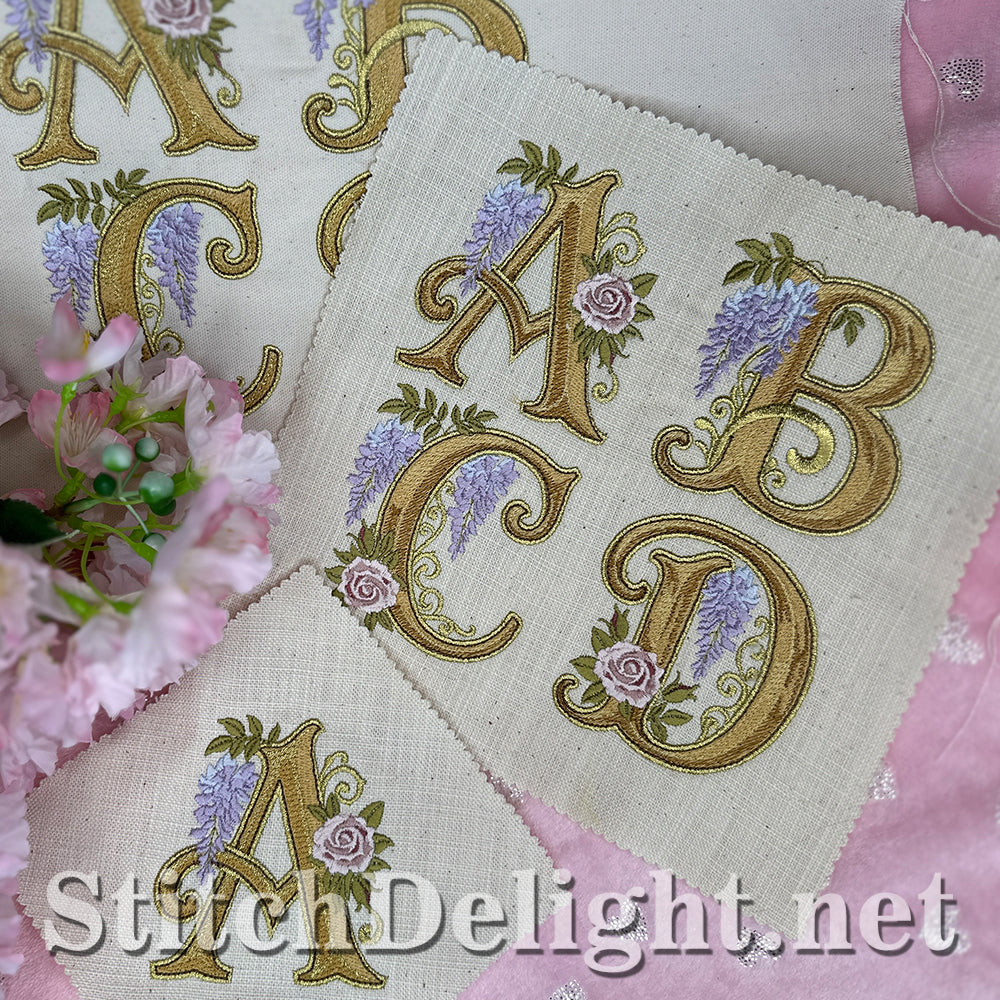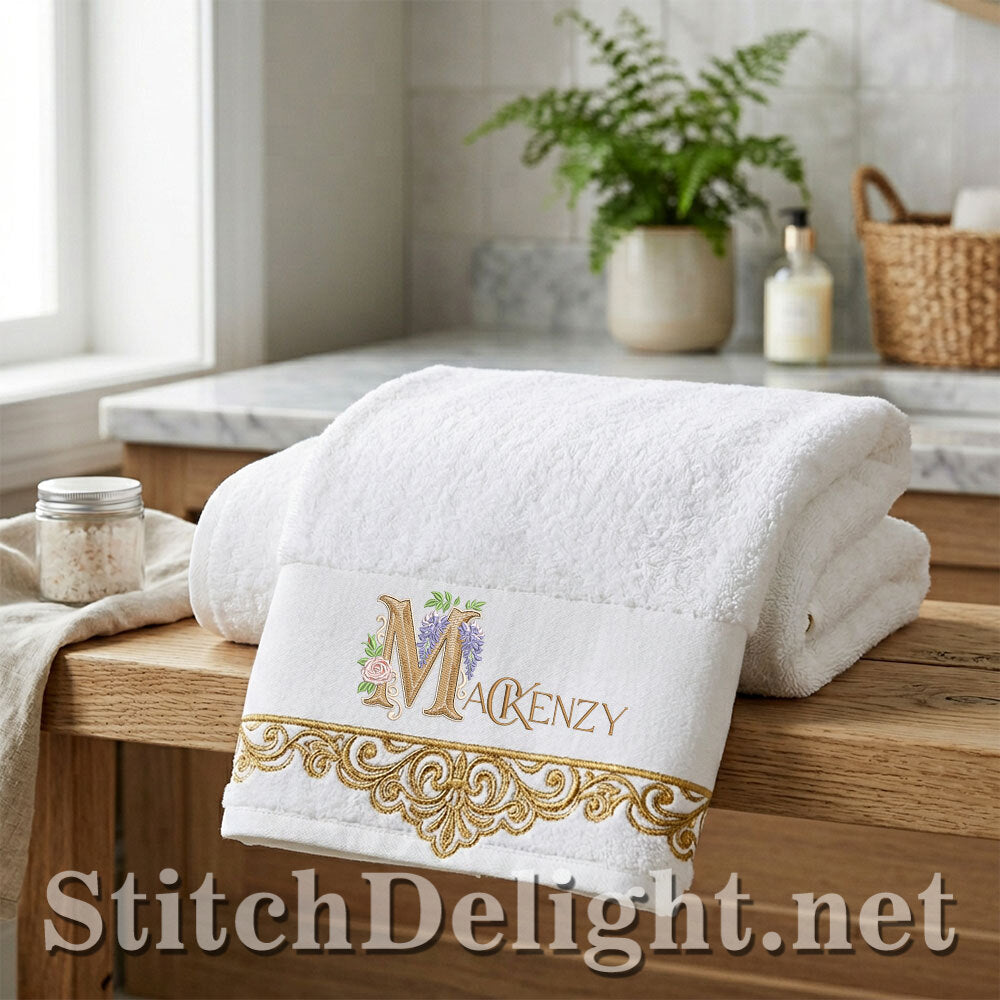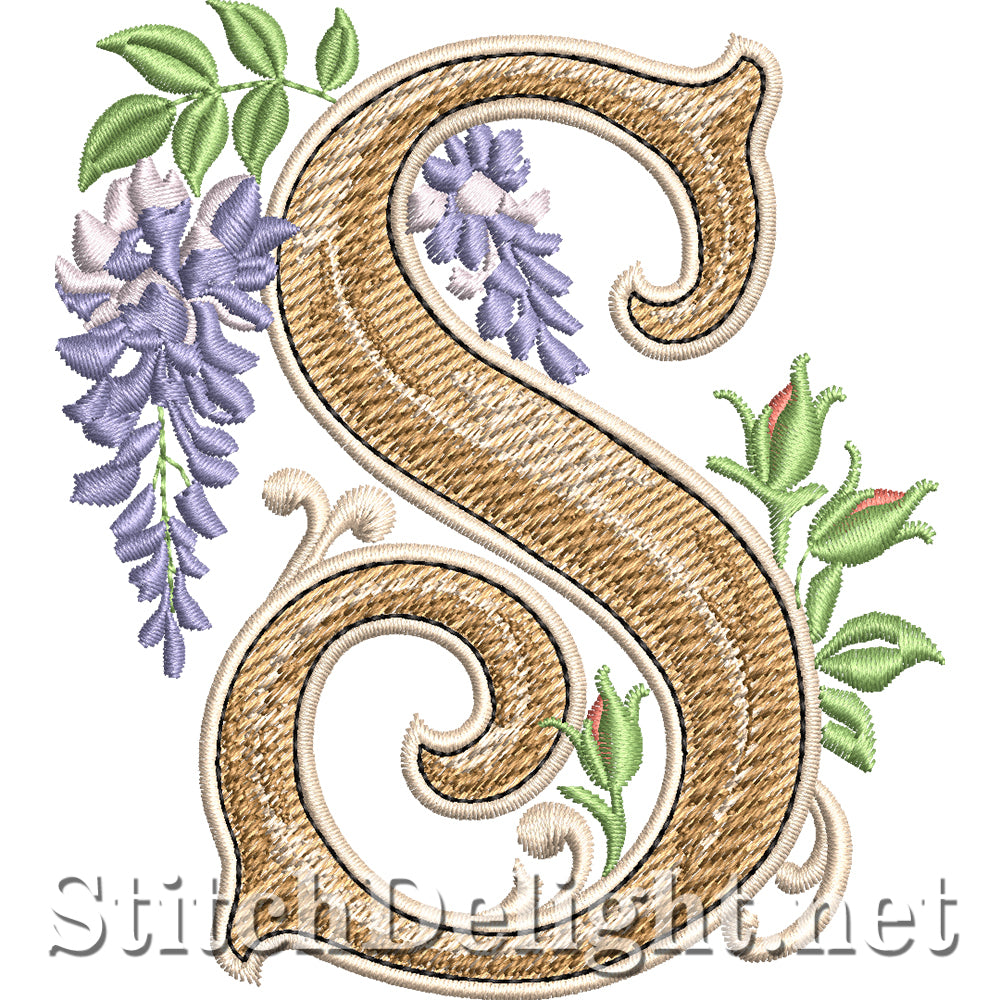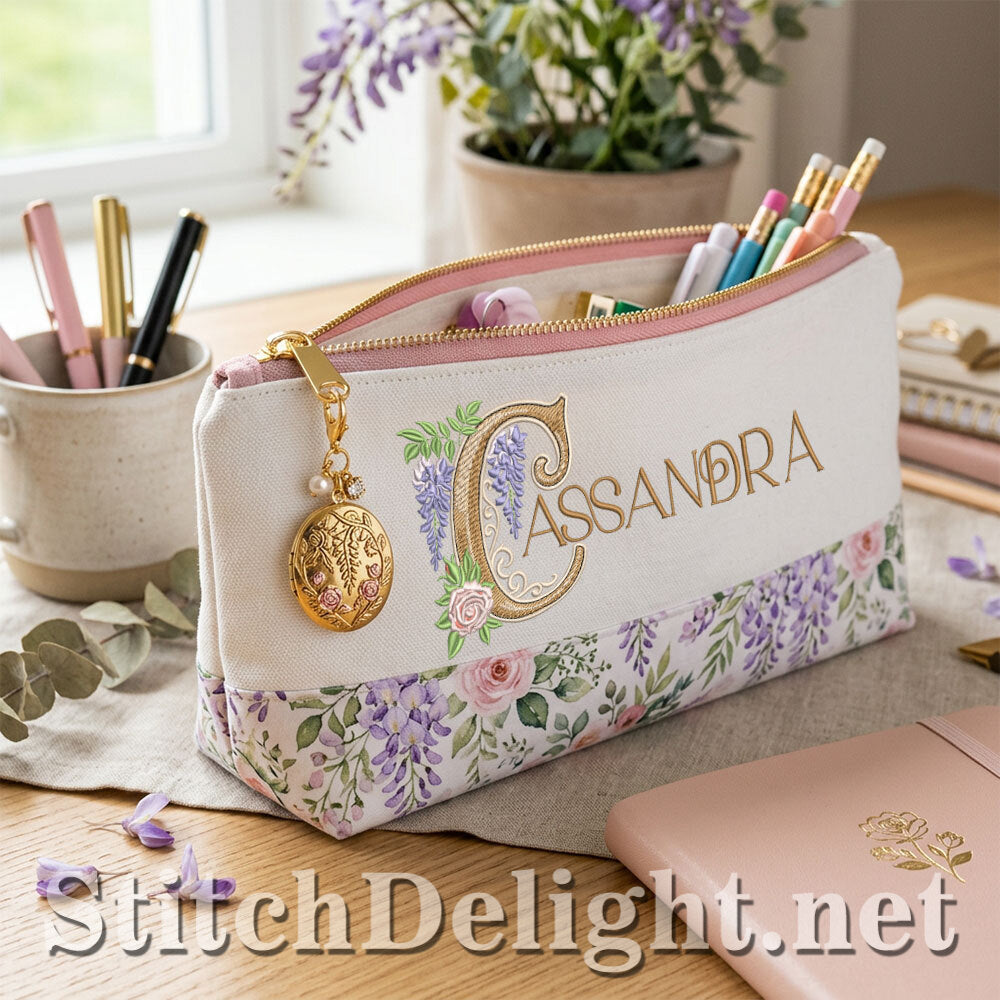
SDS4806 Bridgerton Font S
🌸 Bridgerton Floral Monogram Letters – Single Initial Collection
Inspired by the romantic elegance of the beloved Bridgerton, each letter is a standalone embroidered artwork, richly decorated with florals, scrollwork, and timeless ornamental detail.
This is not just a letter… it’s a statement piece.
✨ Designed as Complete Monogram Designs
With a generous letter height of 89mm (approx. 3.5 inches), these designs create a bold, elegant presence on any project.
🌺 Timeless. Romantic. Effortlessly Elegant.
✔ Classic beauty
✔ Floral sophistication
✔ High-end visual impact